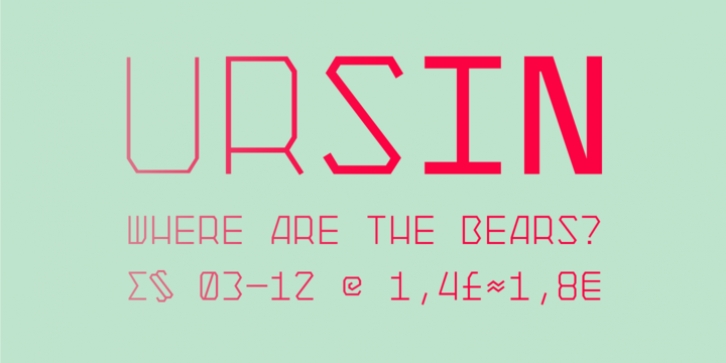
Publisher: Hungarumlaut
Ursin is a geometric monospace sans-serif typeface, with four weights, intended for display typography. The design came from a former logo design, Astroika, the name of a Vodka brand, with a russian feeling. I really loved this logo, that’s why I started design from this typeface. The name came from “ursine”, pertaining to, or characteristic of bears.